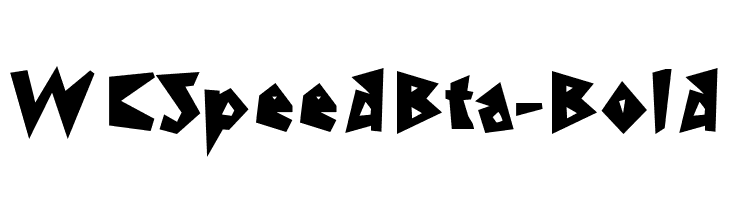
A bold, distressed font with a fragmented, rugged appearance.
A rugged, distressed font with a bold, gritty aesthetic.
A bold, angular font with a dynamic, graffiti-inspired style.
A bold, distressed font with a grunge aesthetic and textured appearance.
A bold, edgy font with jagged, graffiti-like characters.
A bold, distressed font with a rugged, textured appearance.
A bold, distressed font with a hand-drawn, graffiti-like style.